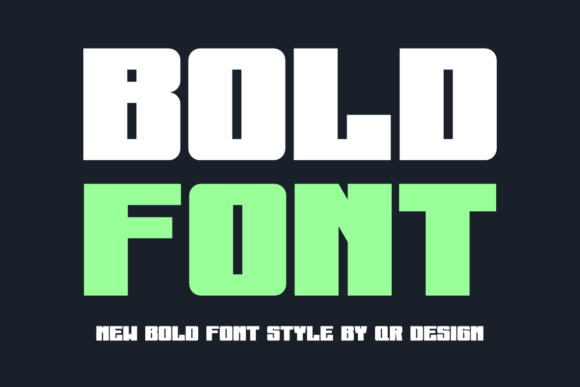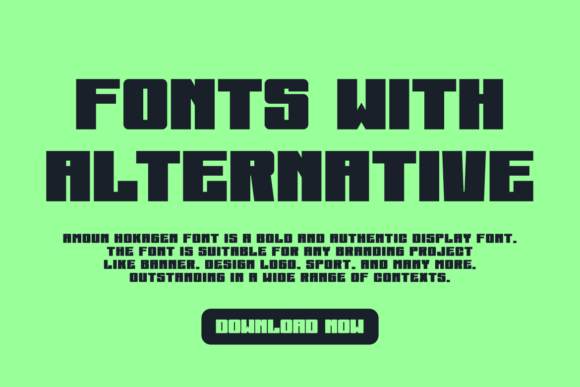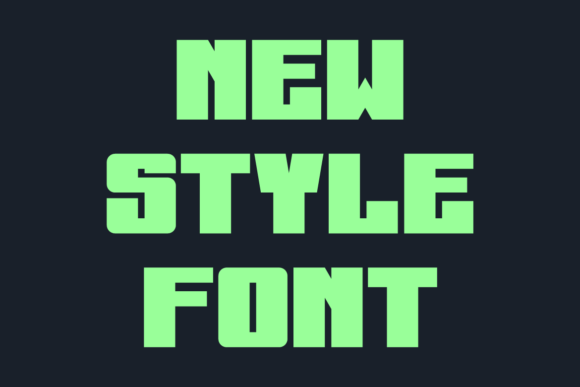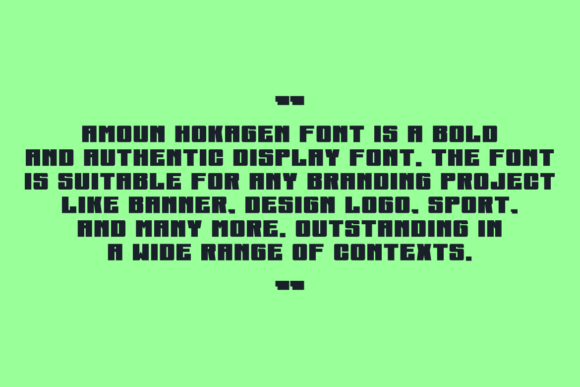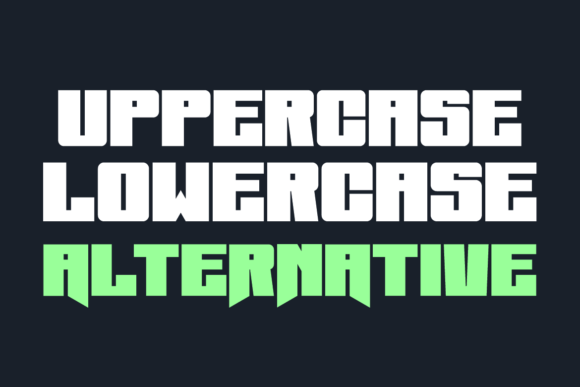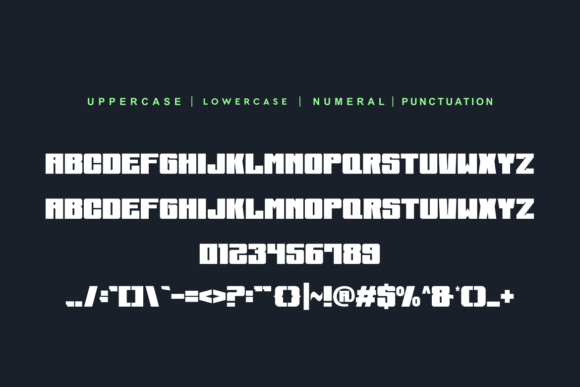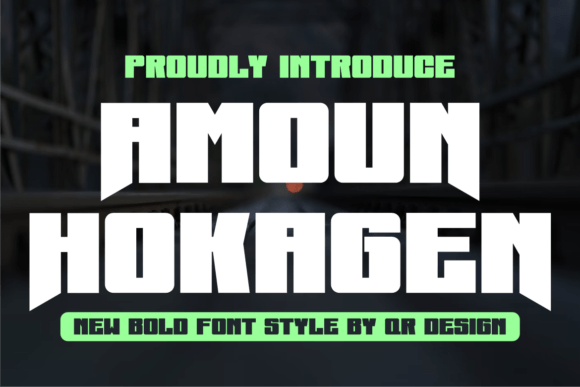
The Designer’s Delight: Amoun Hokagen Font
I’ll never forget the time I was working on a project for a client who needed a bold, eye-catching font to make their brand stand out. I had spent hours scouring the internet for the perfect one, but nothing seemed quite right. That was until I stumbled upon Amoun Hokagen Font. 💡
This bold and authentic sans display font has been a game-changer for my design projects, and I’m excited to share my experience with you. In this article, we’ll dive into the world of Amoun Hokagen Font, exploring its features, how to use it, and what makes it so special.
- 💥 **Bold and eye-catching**: Amoun Hokagen Font makes a statement with its strong, confident lines.
- ✅ **Authentic feel**: The font has a genuine, handmade quality that adds a touch of personality to any project.
- 🌈 **Versatile**: Whether you’re working on a logo, poster, or social media graphic, Amoun Hokagen Font adapts effortlessly.
While Amoun Hokagen Font is an excellent choice, there are a few things to keep in mind:
- 🤔 **Limited use cases**: Due to its bold nature, Amoun Hokagen Font works best as a display font, rather than for body text.
- ⚠️ **Glyph limitations**: Some users have reported issues with certain glyphs or special characters; however, these can often be resolved with OpenType features.
Amoun Hokagen Font was designed with the goal of creating a bold, authentic sans display font that would add a touch of personality to any project. The designer drew inspiration from modern typography and a passion for creative expression.
| What is Amoun Hokagen Font best used for? | Amoun Hokagen Font works best as a display font for headlines, titles, and short text passages. |
| Is Amoun Hokagen Font suitable for body text? | No, Amoun Hokagen Font is best used as a display font; it’s not recommended for body text due to its bold nature. |
Amoun Hokagen Font is a bold and authentic sans display font that can instantly elevate your creative projects. With its strong lines and authentic feel, it’s the perfect choice for designers, crafters, and creative hobbyists looking to add a touch of personality to their work.